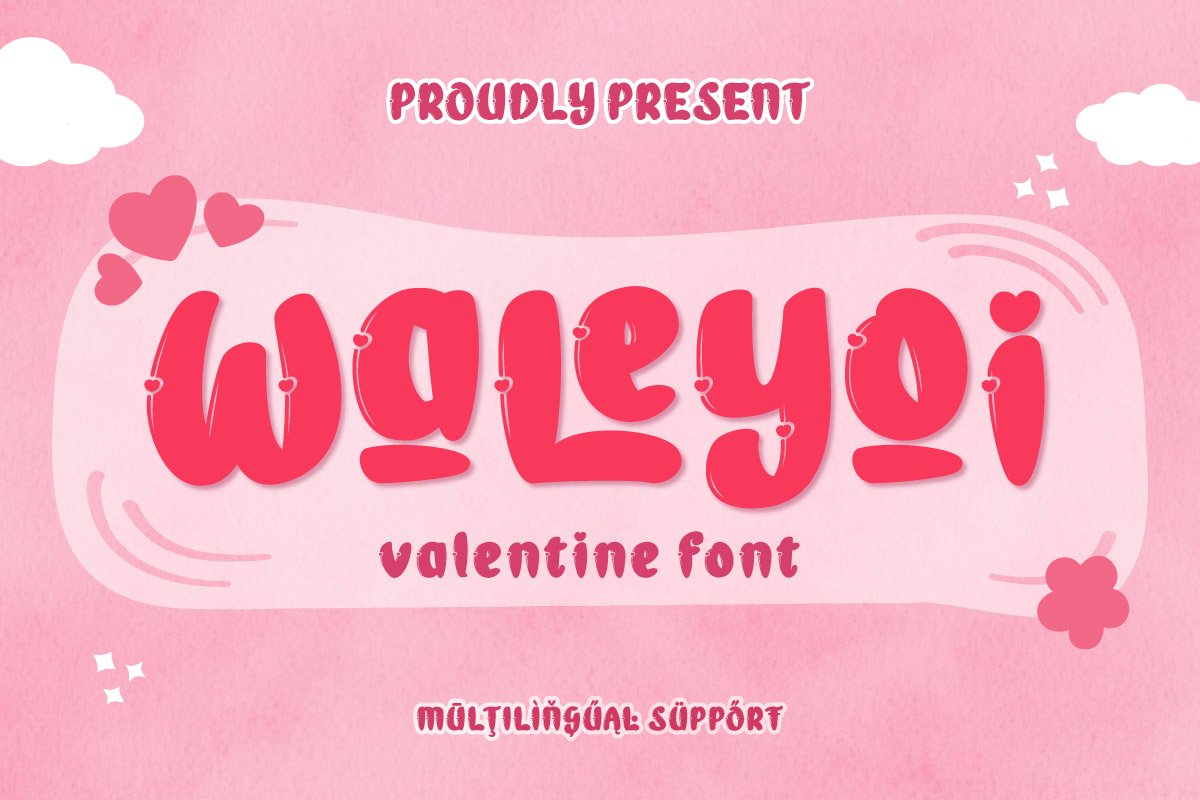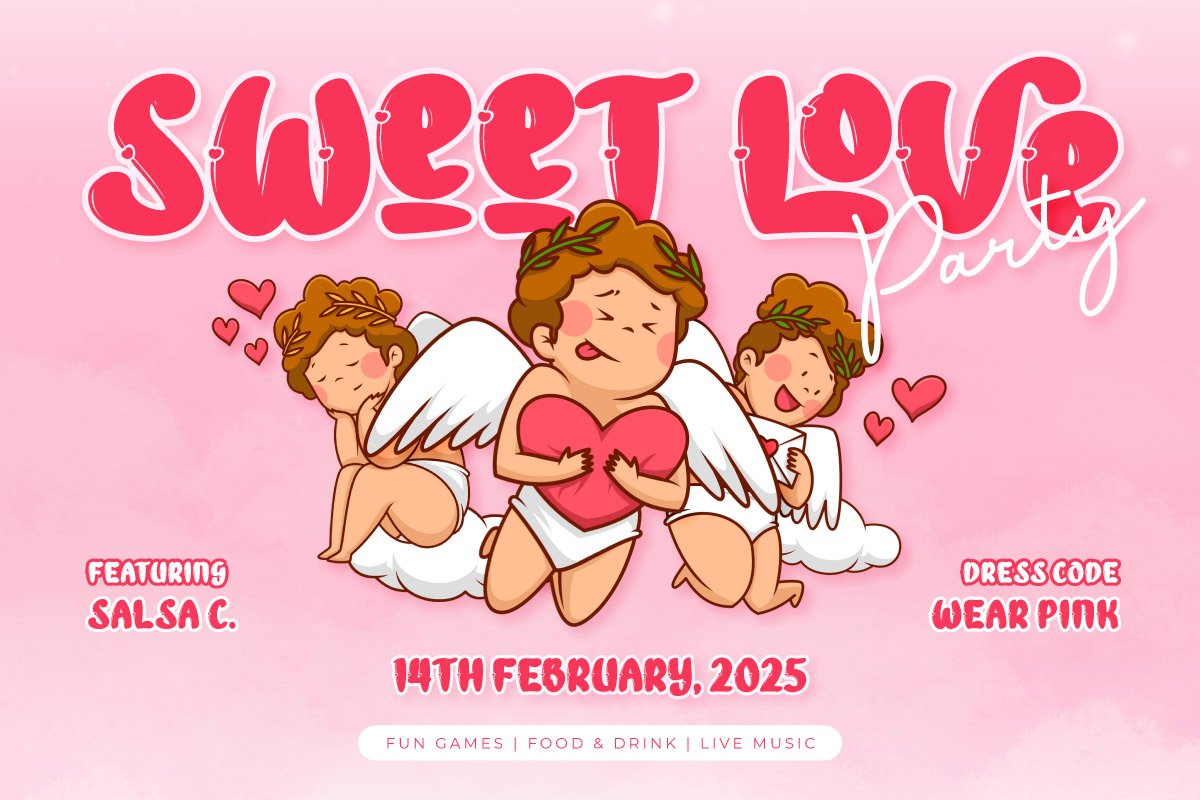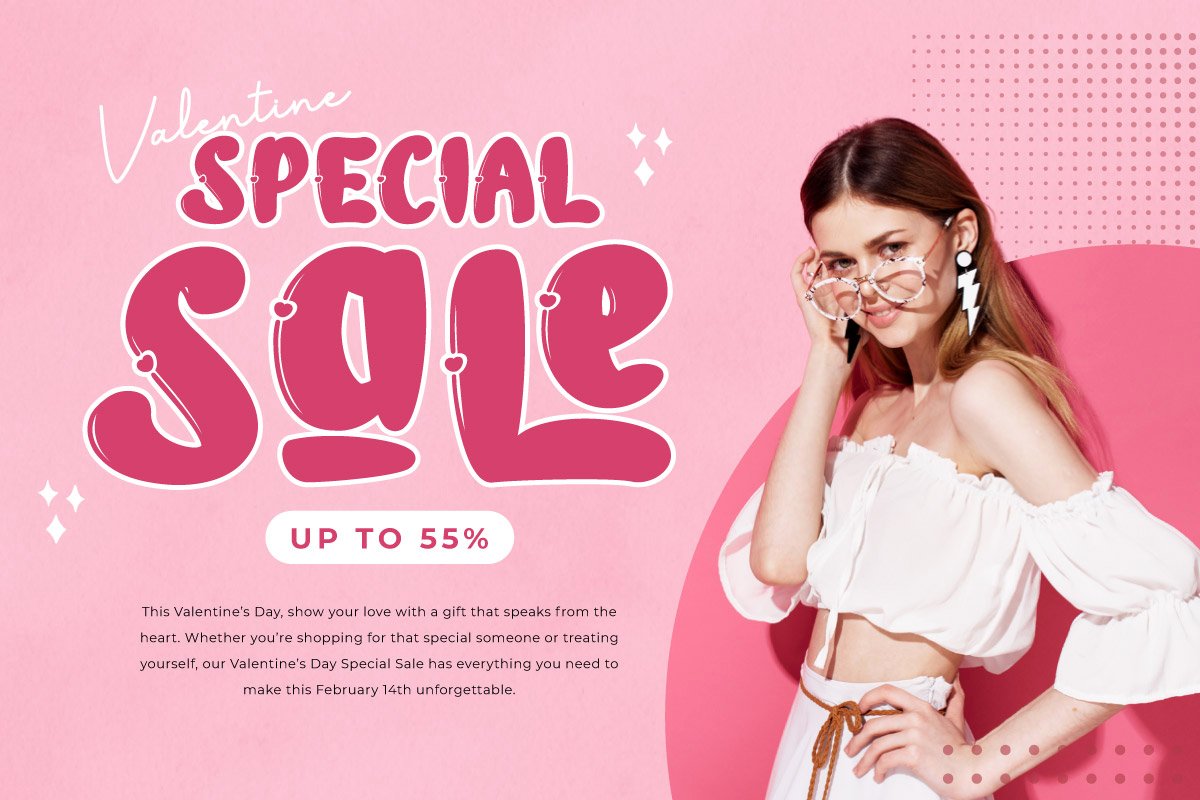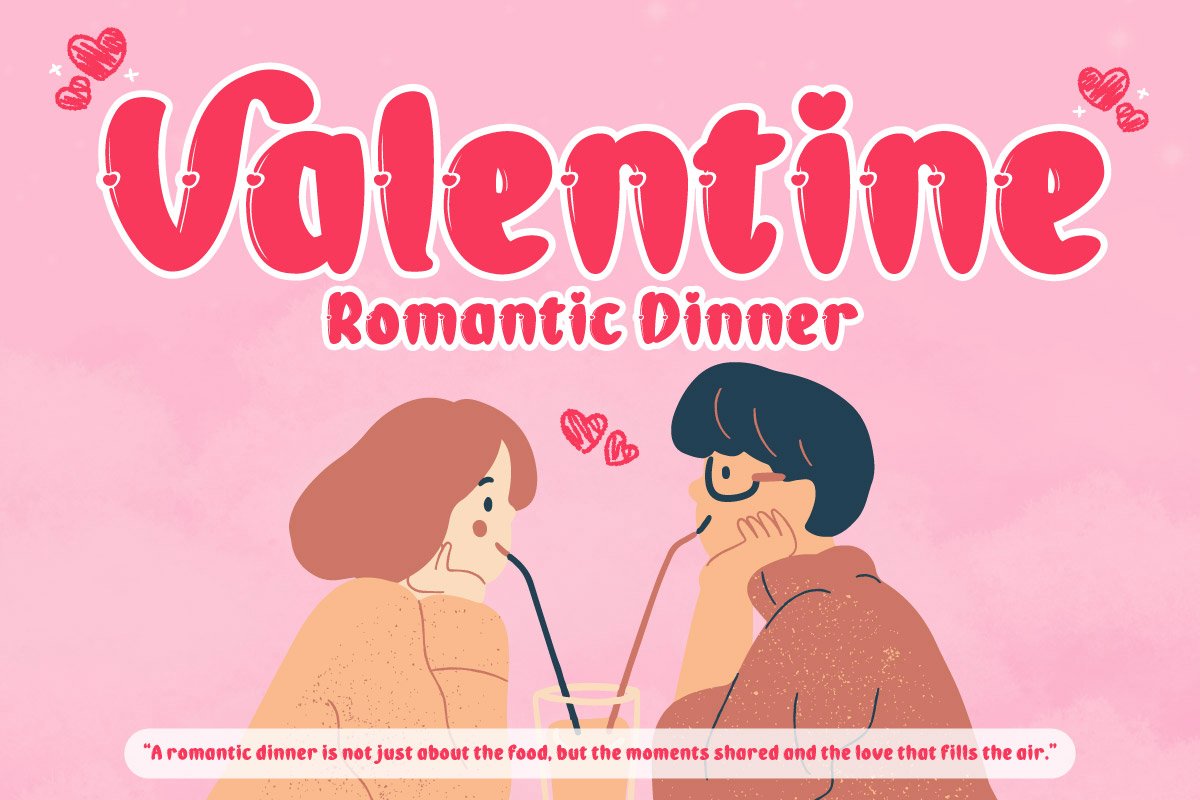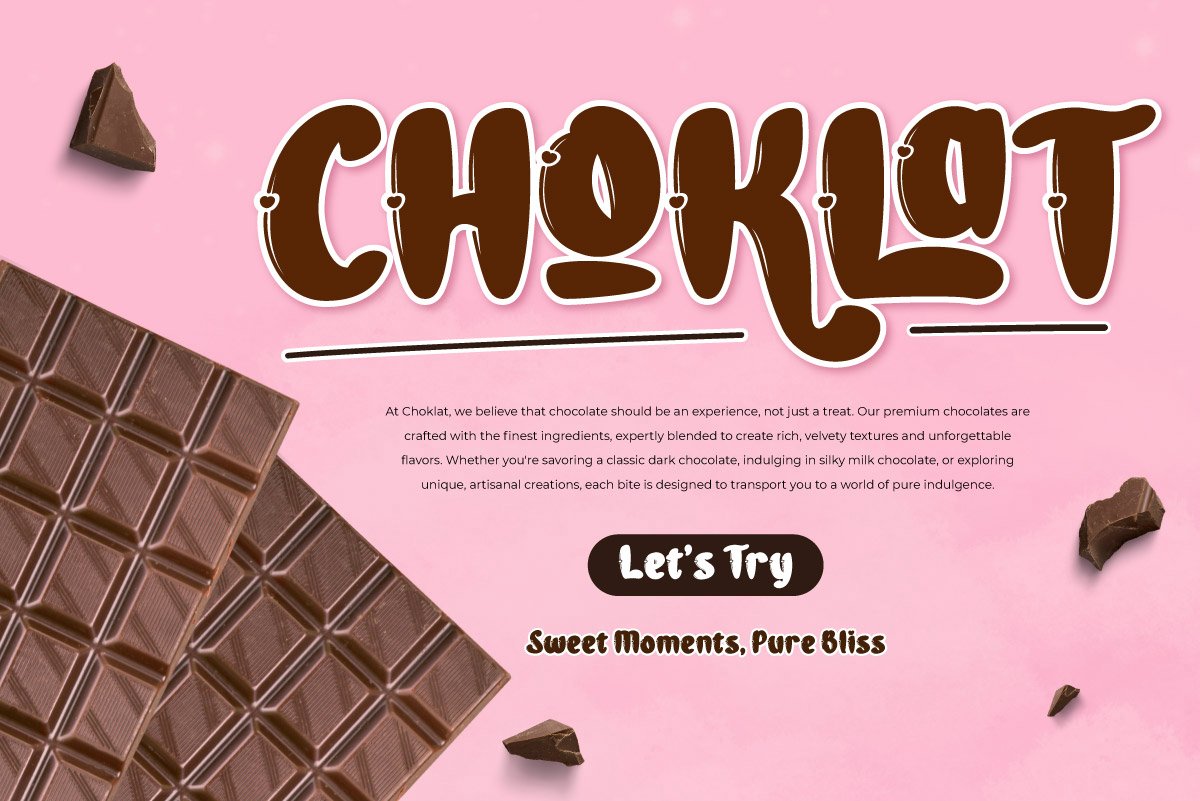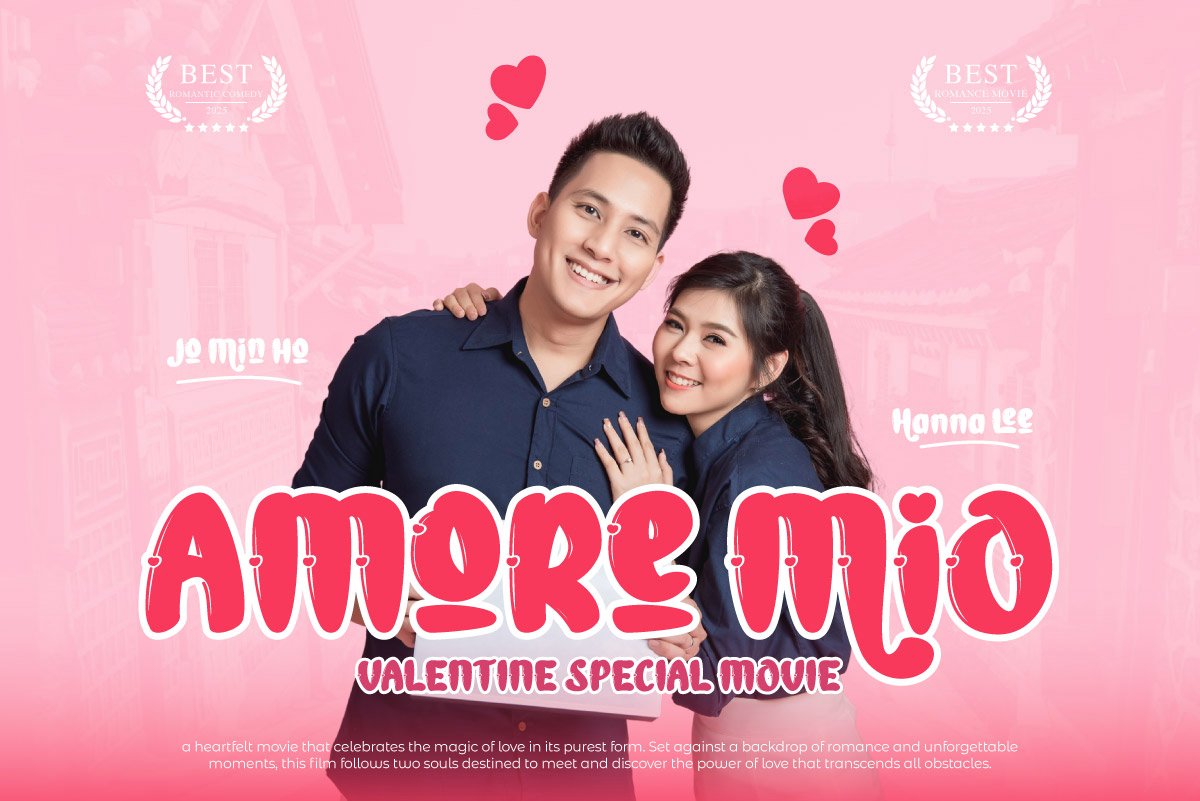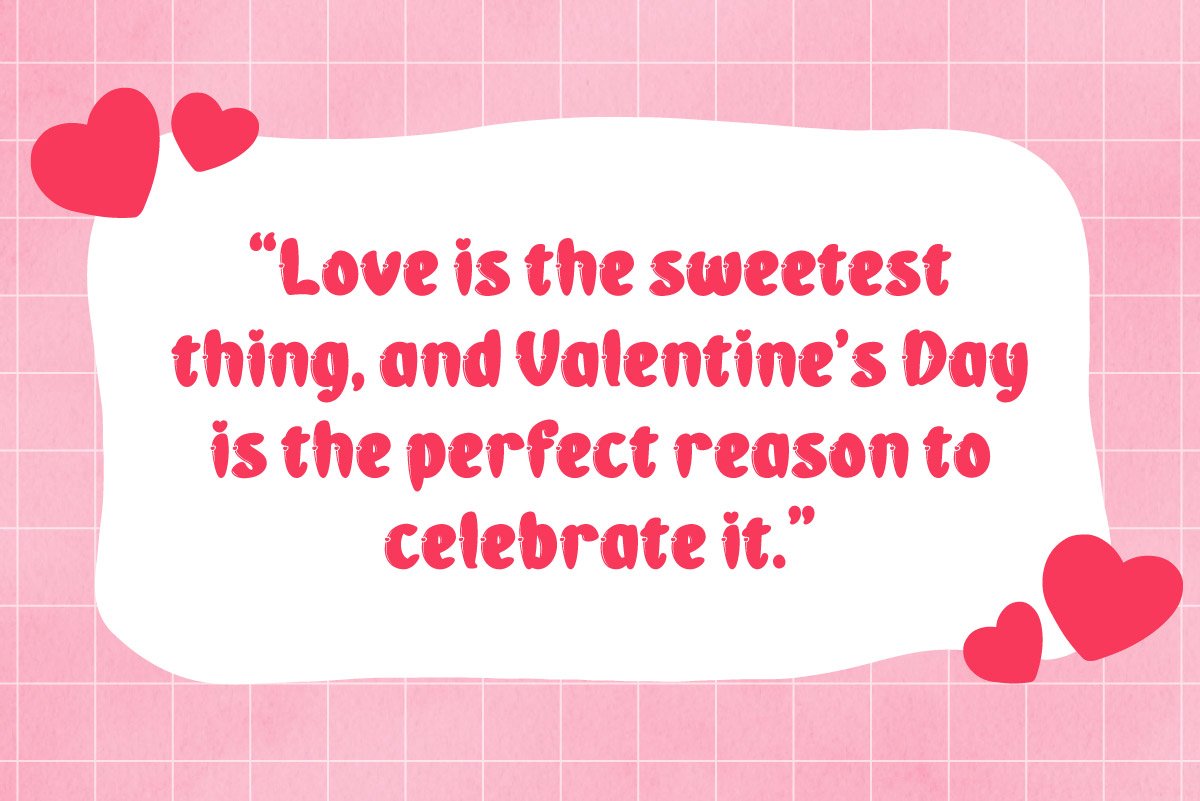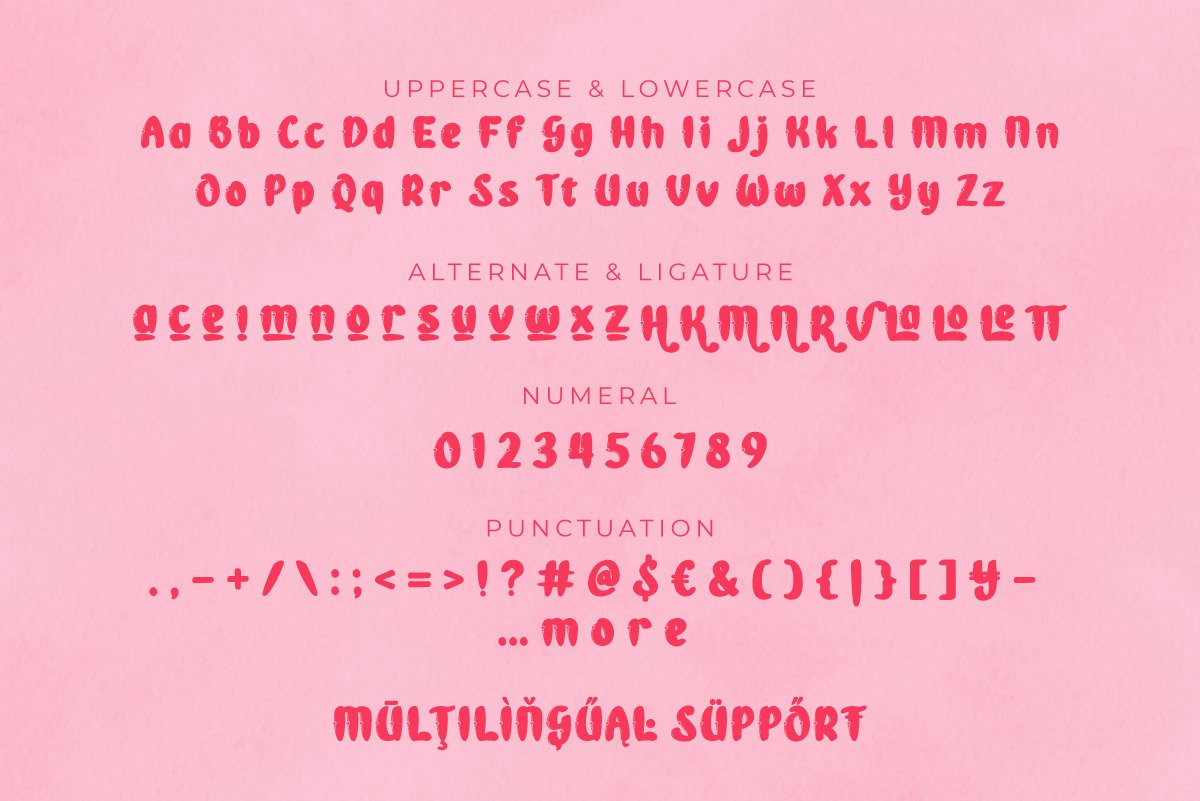
5. Waleyoi – Whimsical & Romantic Valentine Font
Waleyoi – Whimsical & Romantic Valentine Font
Waleyoi is a charming, sweet, and romantic font that brings a whimsical and elegant feel to any Valentine’s design. Whether you’re working on love notes, romantic branding, or special event invitations, this font enhances your creativity with soft curves, heart-inspired elements, and stylish aesthetics. Ideal for designers, social media marketers, and businesses looking to create eye-catching Valentine promotions, chocolate packaging, love festival banners, and heartfelt greeting cards. Let Waleyoi make your projects more lovable and visually appealing.